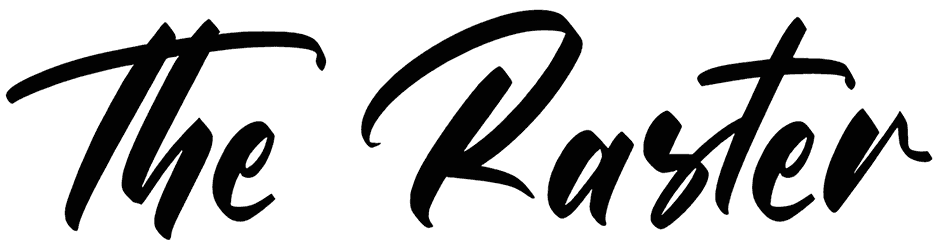
The Raster Font
One thing that matters about nicely displaying a project is choosing the face and the Raster by an arty-crafty outward. This brush font has eager hand lettering, and together with that, being an A-Z font will provide you…
One thing that matters about nicely displaying a project is choosing the face and the Raster by an arty-crafty outward. This brush font has eager hand lettering, and together with that, being an A-Z font will provide you with more freedom to create multiple designs. Let’s apply The Raster in flyers, covers, social media posts, and many more.